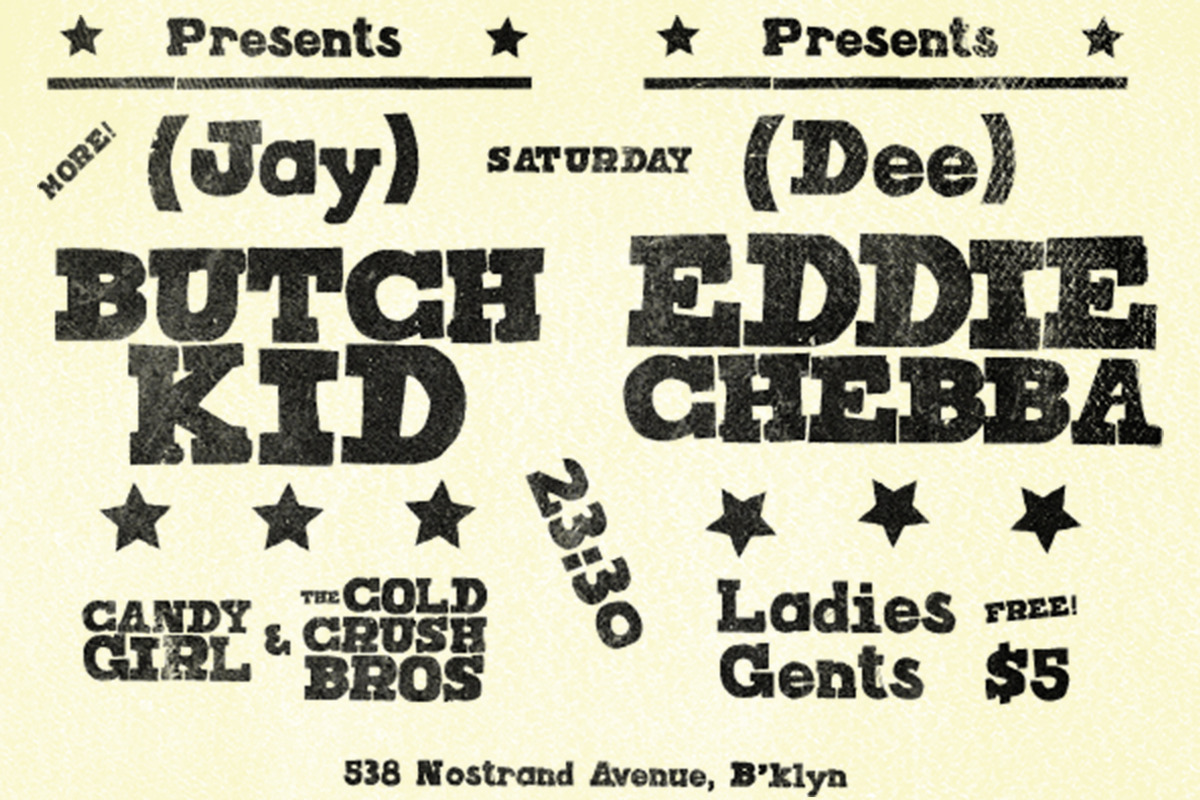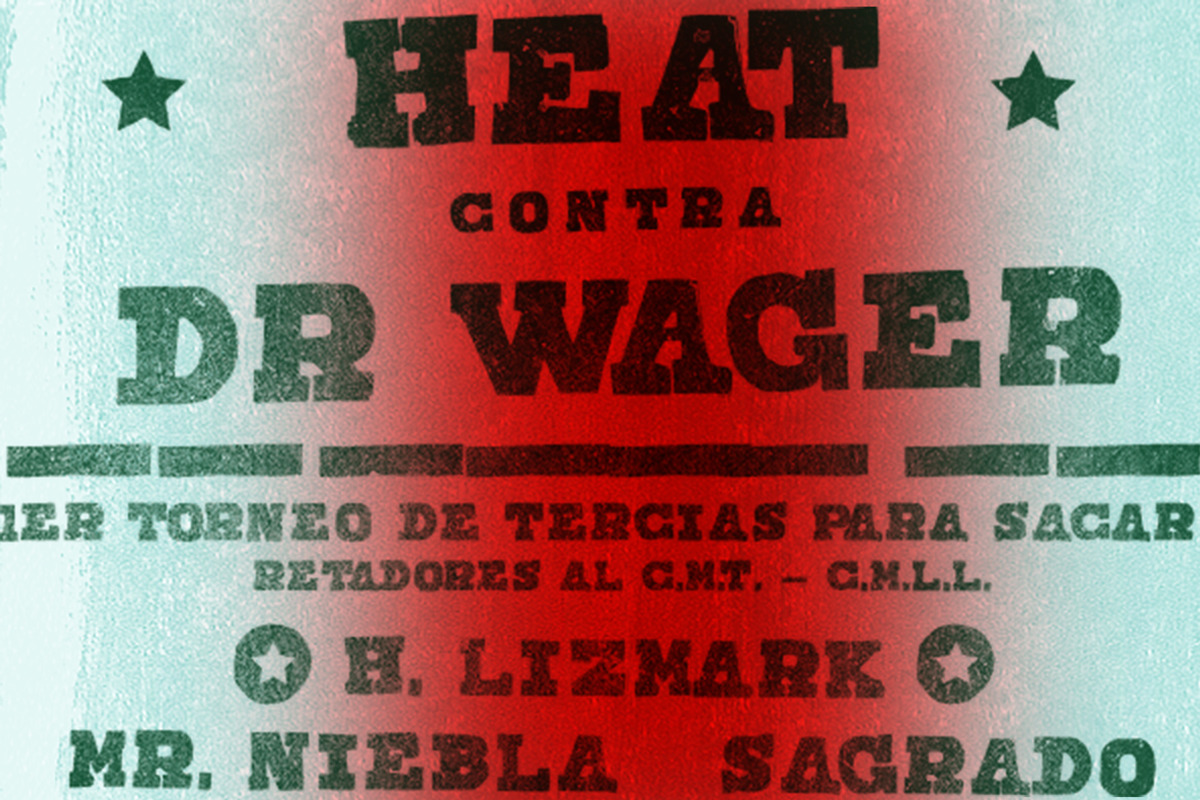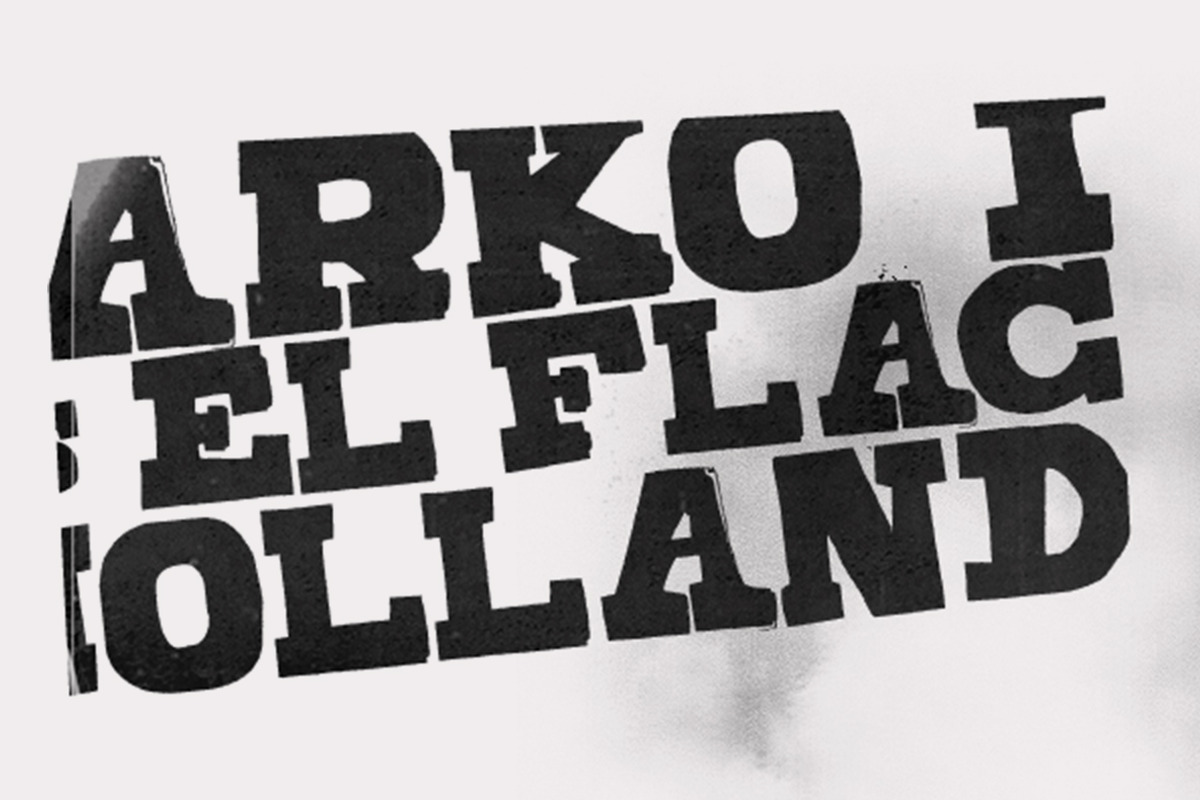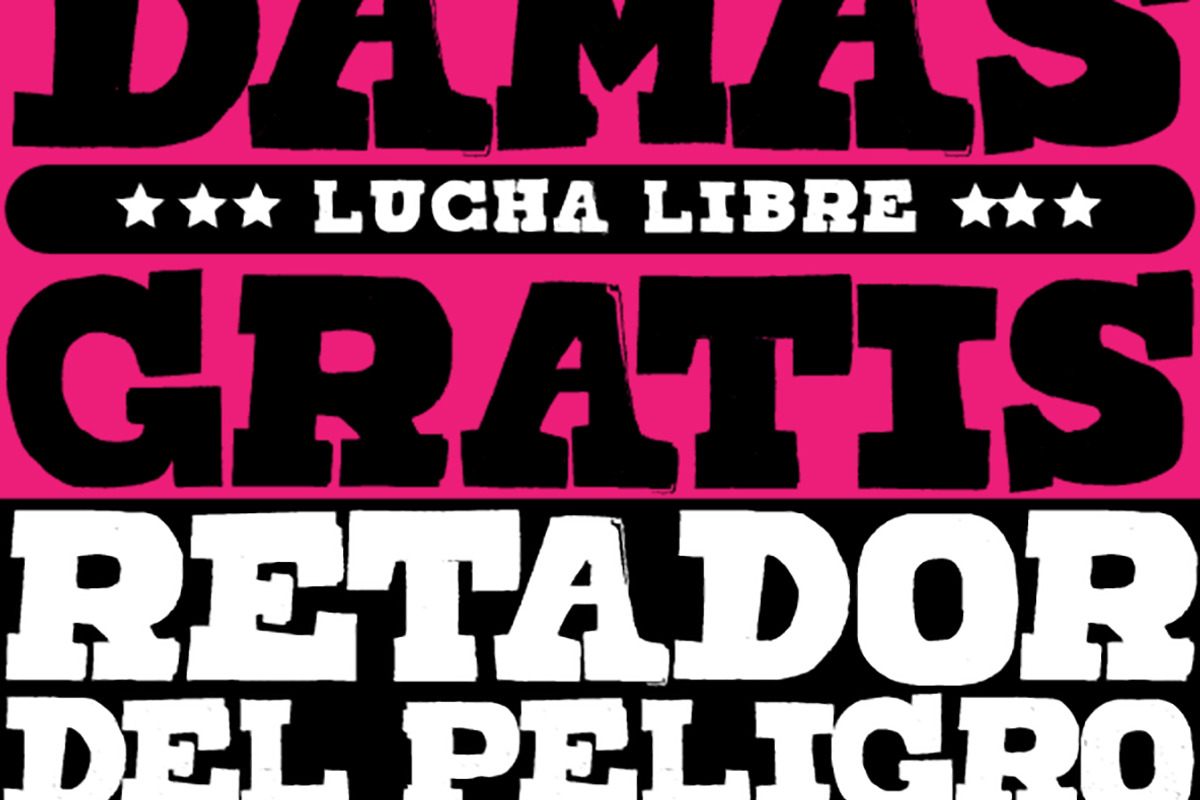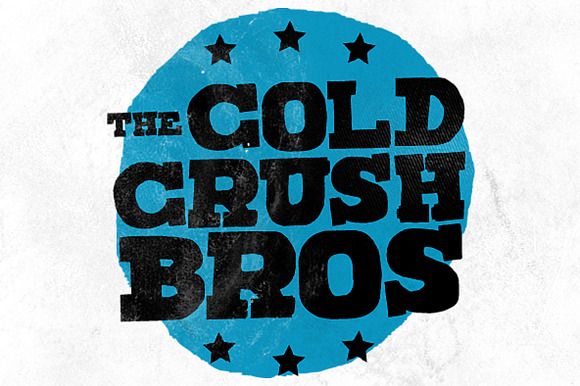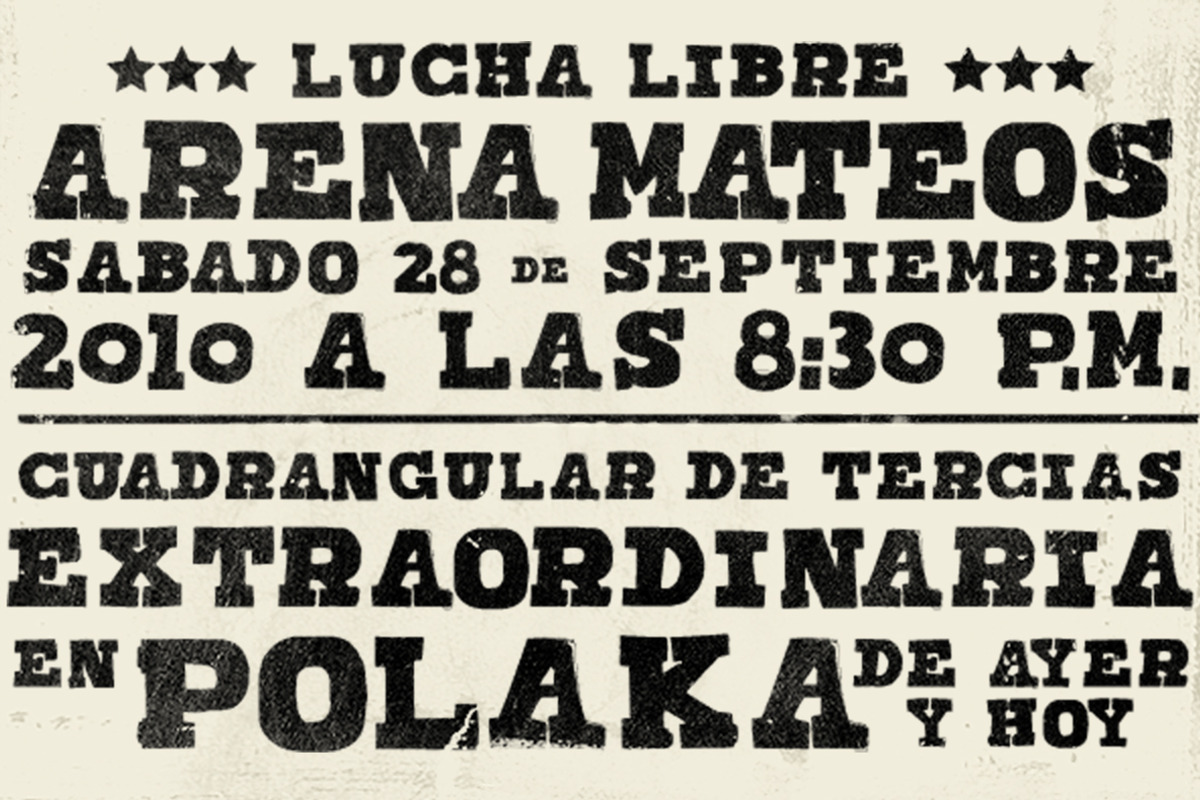
TOMO Joseph
Joseph is a slab-serif face designed by TOMO. With a wood type look - letterpress print, this fatty come in handy when is time to design an informal —yet strong—looking communication piece. Imagine this typeface on a T-shirt, a cup or even a mug! Sweet.